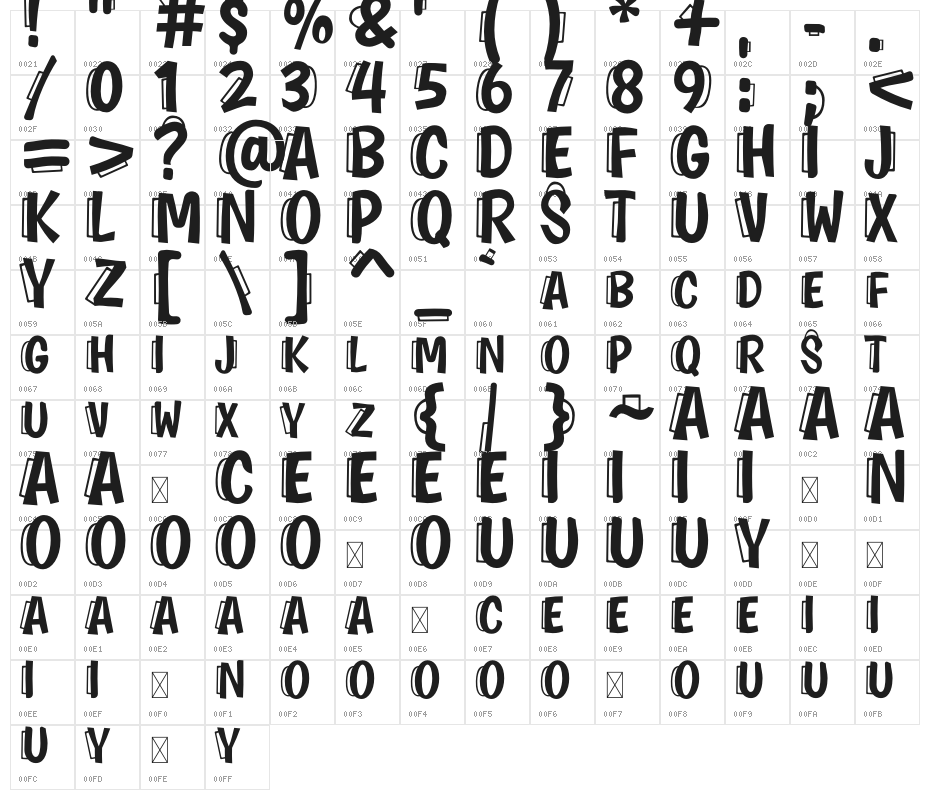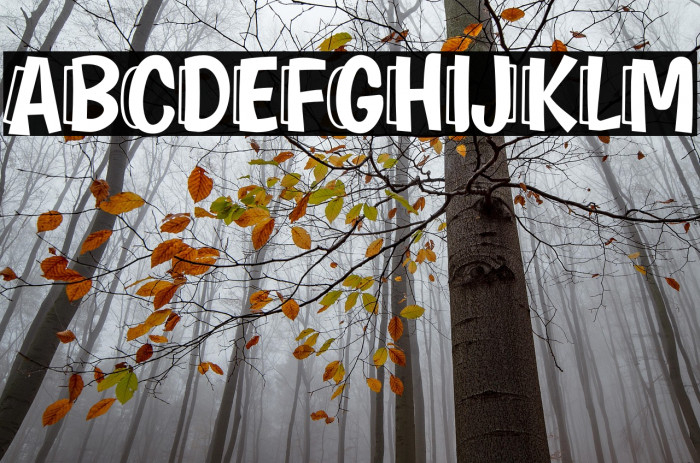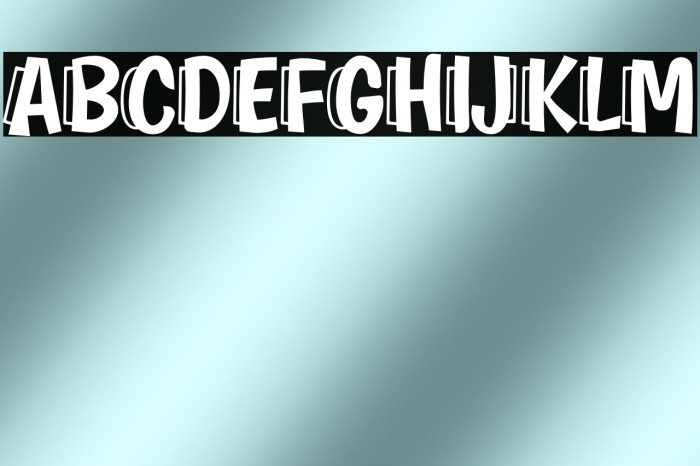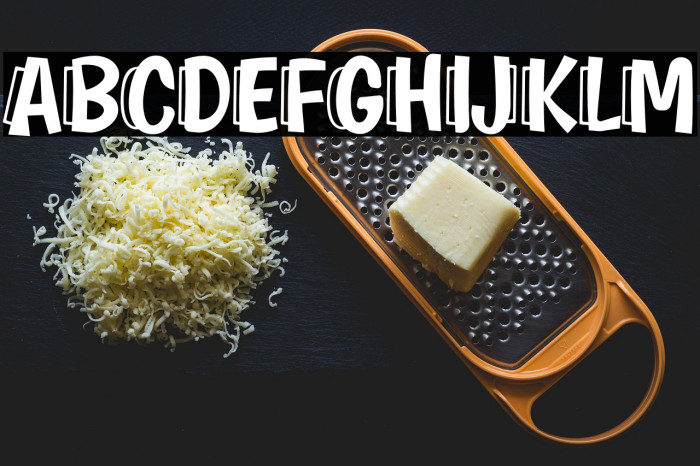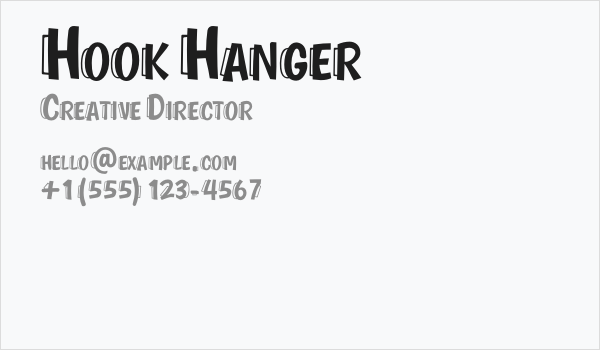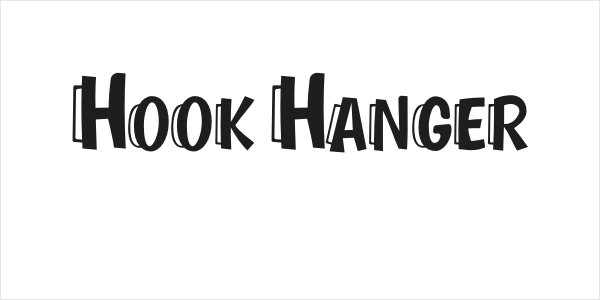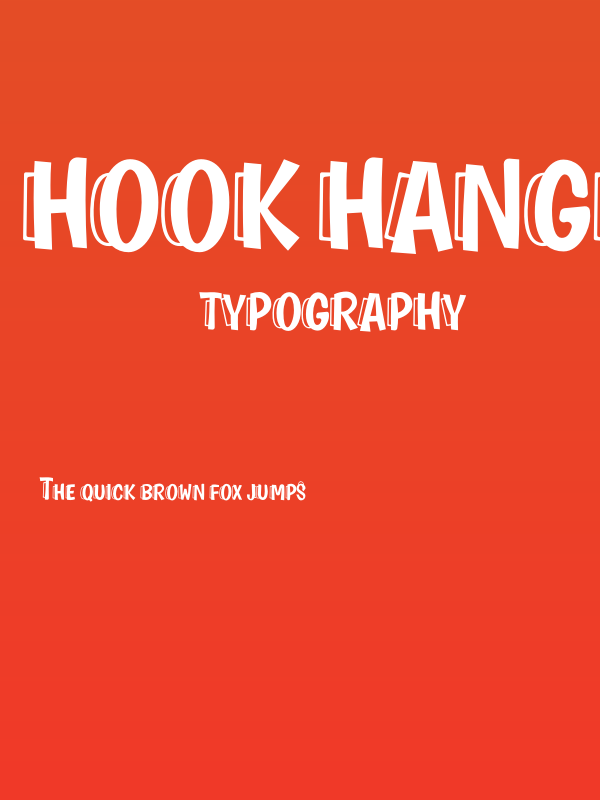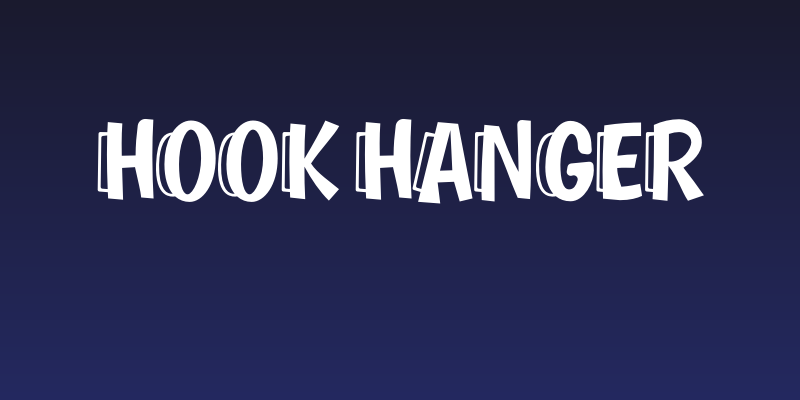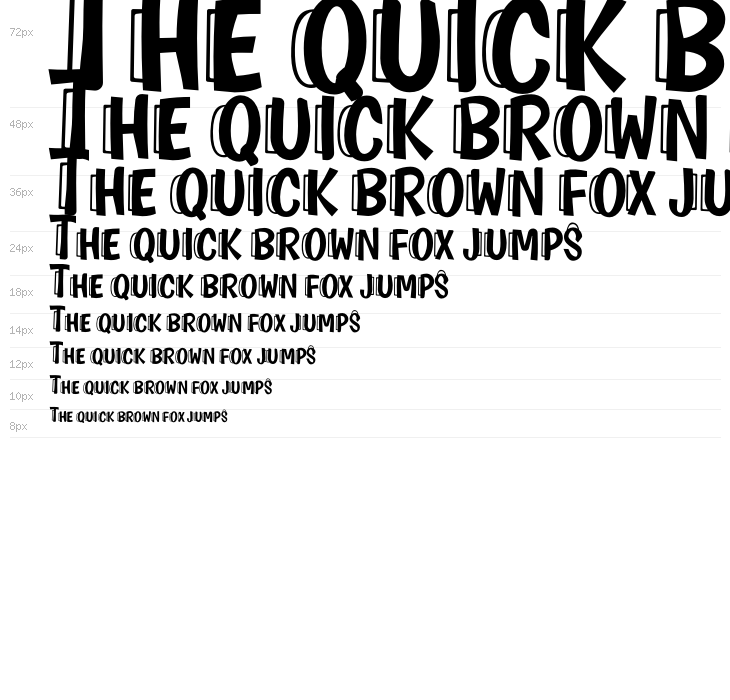
Hook Hanger Font
Hook Hanger Description
This font features a bold, playful style with a three-dimensional effect, giving each character a shadowed appearance. The letters are uppercase and have a hand-drawn, cartoonish quality, making them stand out with a dynamic and energetic vibe. The strokes are thick and consistent, contributing to a strong visual impact. The numbers and special characters follow the same design, ensuring a cohesive look across all elements. This font is ideal for projects that require a fun and engaging aesthetic, such as children's books, comic strips, or playful branding.
| Overall Style | Playful, Cartoonish, Energetic |
| Use Case | Headlines, Posters, Branding |
| Proposed Projects | Ideal for children's books, comic strips, playful branding, and eye-catching posters. |